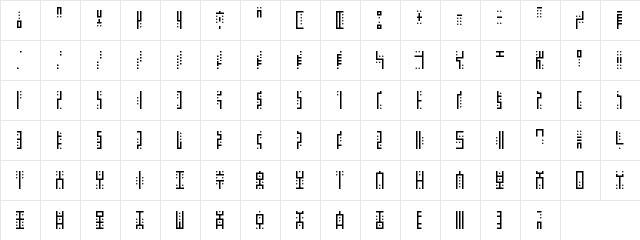
South Venusian Regular
| Designer | Scott Layne |
Design Context for South Venusian Typeface
South Venusian is a composed and adaptable typeface that performs quietly and consistently across a wide range of design contexts.